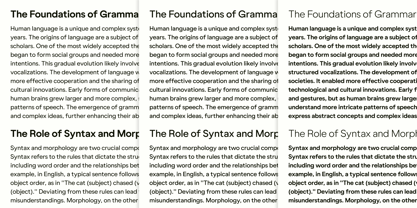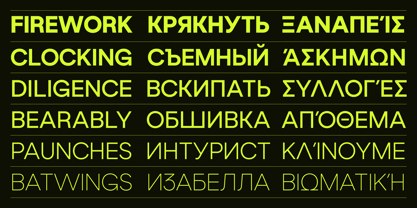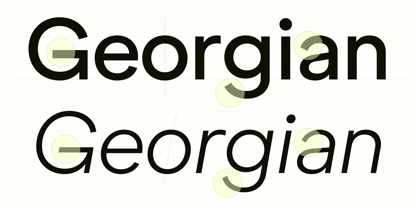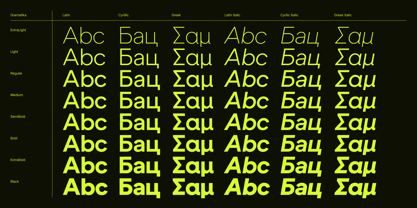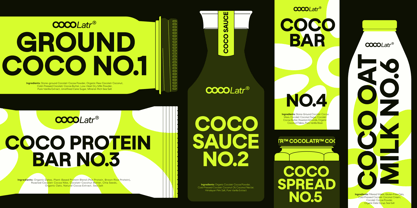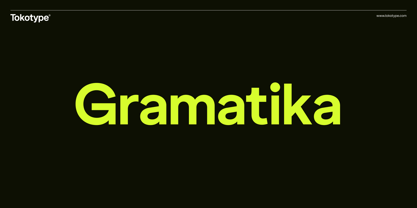
Gramatika
by Tokotype
Gramatika is a geometric grotesque sans-serif type family with eight weights, from ExtraLight to Black, each accompanied by a subtly oblique italic. Its design draws on a modular circular approach while introducing refined, contemporary adjustments. Notable features include circular-based descenders in characters like g and y and an alternate single-story a, adding subtle personality. Striking a balance between structure and adaptability, Gramatika offers a fresh take on modern typographic trends. The latest version includes extended Latin support along with Cyrillic and Greek characters.